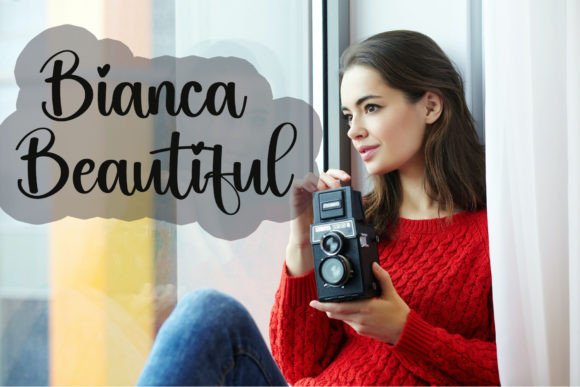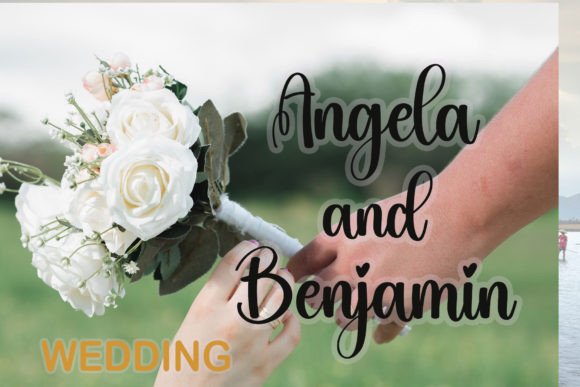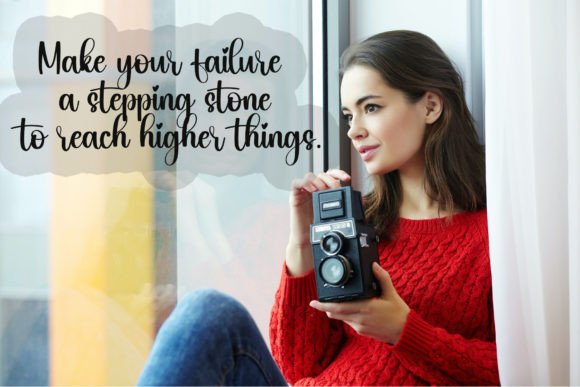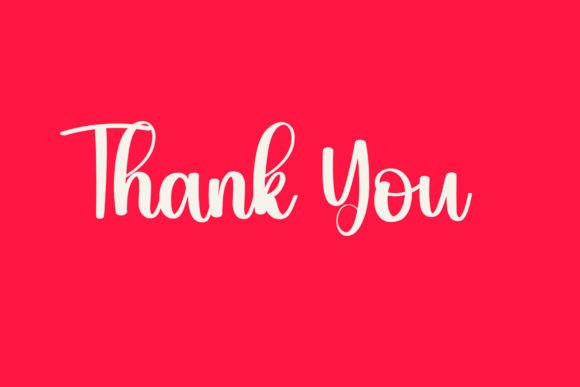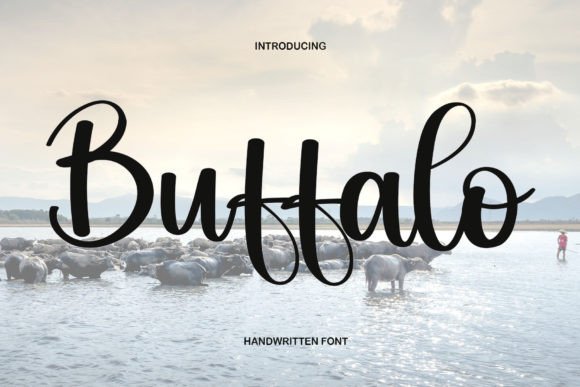
The Designer’s Delight: Exploring the Elegance of Buffalo Font
I’ll never forget the time I was working on a wedding invitation project, and my client requested a font that exuded elegance and sophistication. I scoured the internet, tried out countless fonts, but nothing seemed to fit the bill. That was until I stumbled upon Buffalo Font. ✨ It was love at first sight! The trendy, handwritten style with a contemporary atmosphere and impeccable form won me over, and I knew I had found the perfect fit for my project.
An Honest Review of Buffalo Font
- ✨ Elegant and classy design that’s perfect for high-end projects
- ✅ Impeccable form and attention to detail
- 💫 Versatile and adaptable to various design needs
- 🎨 Beautifully crafted to add a touch of sophistication to any project
While Buffalo Font is an excellent choice, there are a few things to keep in mind: ⚠️ It may not be the best fit for very casual or playful projects, as it does lean towards the more formal side. 🤔 Additionally, some users may find the font a bit too ornate for certain applications.
The Story Behind Buffalo Font
Buffalo Font was inspired by timeless classic calligraphy, with a focus on creating a modern and trendy handwritten font. The designer aimed to craft a font that would add elegance and class to any design project, while still being versatile and adaptable. 💫
Q: What type of projects is Buffalo Font best suited for?
A: Buffalo Font is ideal for high-end projects that require an elegant and sophisticated touch, such as wedding invitations, luxury branding, and formal events.